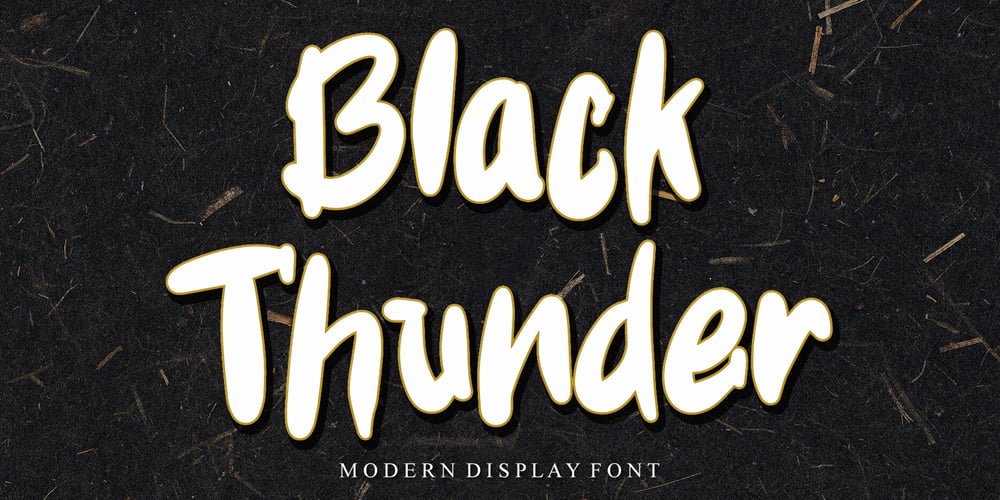
Black Thunder
Black Thunder font
Black Thunder Font Family was designed by Ahmad Afandi and published by Letterafandi Studio. Black Thunder contains 1 styles and family package options. Black Thunder is a Modern and friendly brushed display font. This font is PUA encoded which means you can access all of the glyphs and swashes with ease!Add it confidently to your favorite creations and let yourself be amazed by the outcome generated.